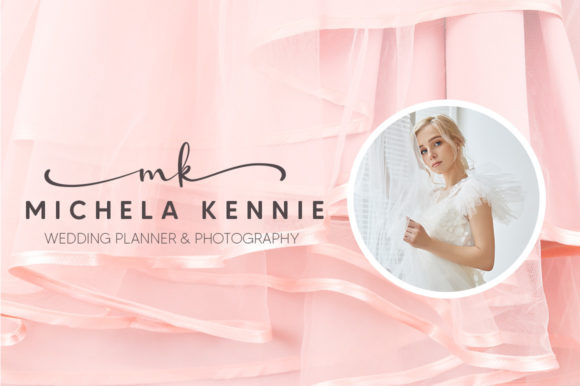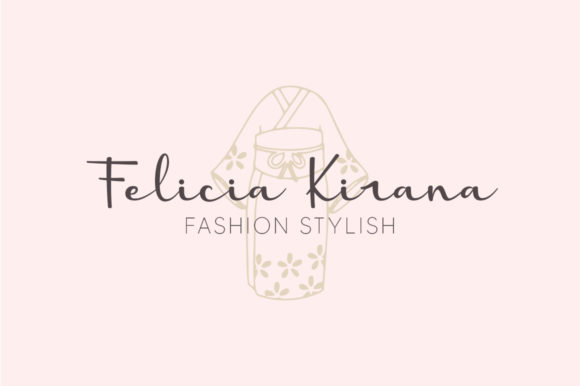
Sakura Font
db-ku.com - Script & Handwritten -- Sakura is a refined and elegant handwritten font. Dainty and joyful, this font will be ideal for writing wedding invitations, cards or any other design that may need a romantic, personalized touch! This font is PUA encoded which means you can access all of the glyphs and swashes with ease!